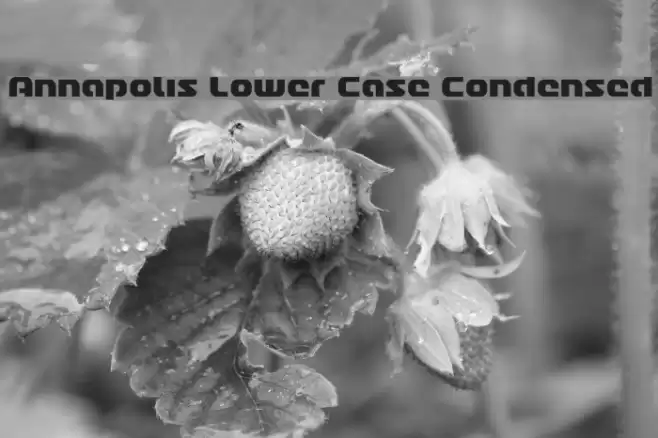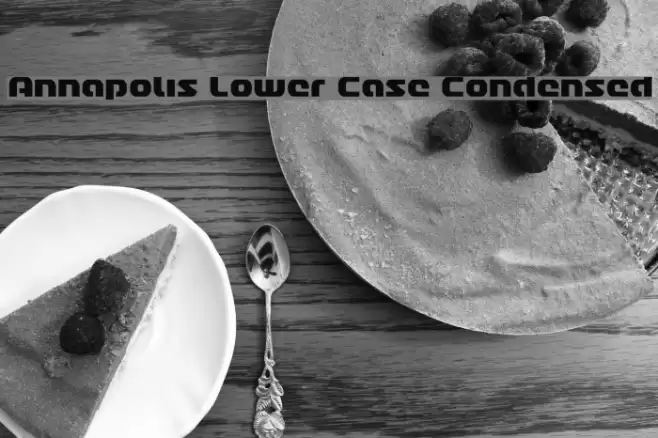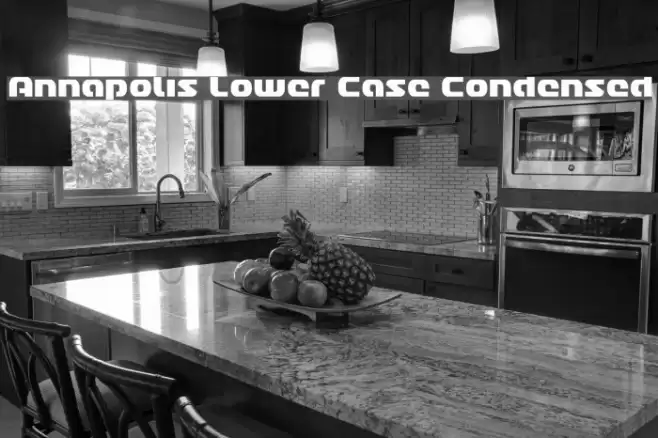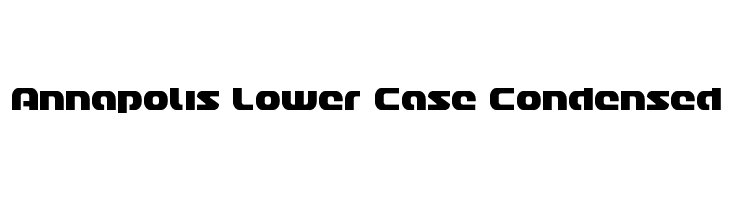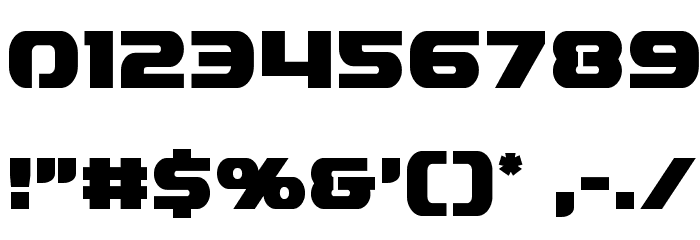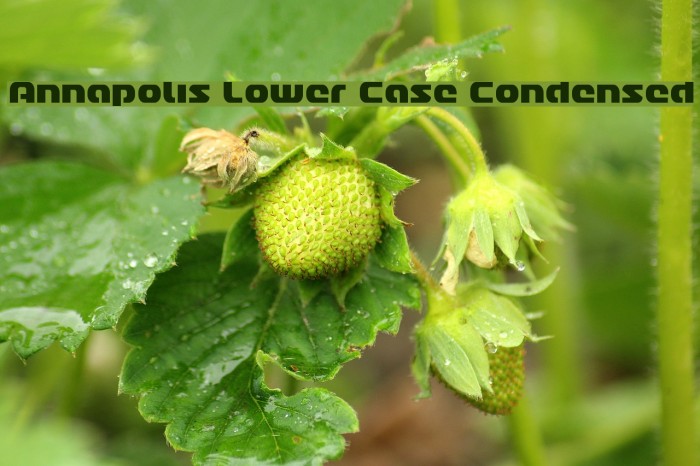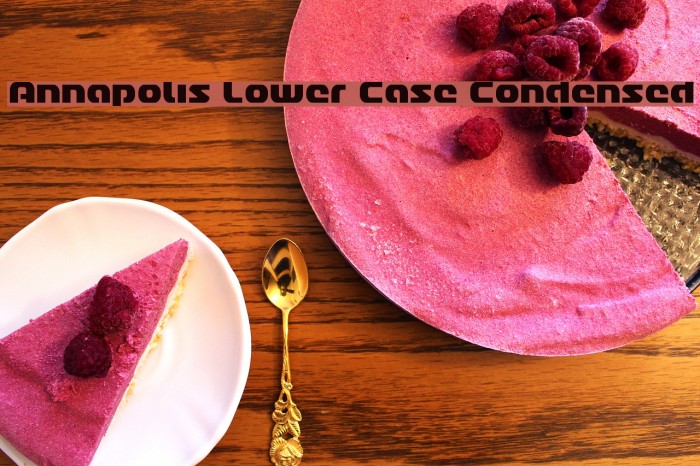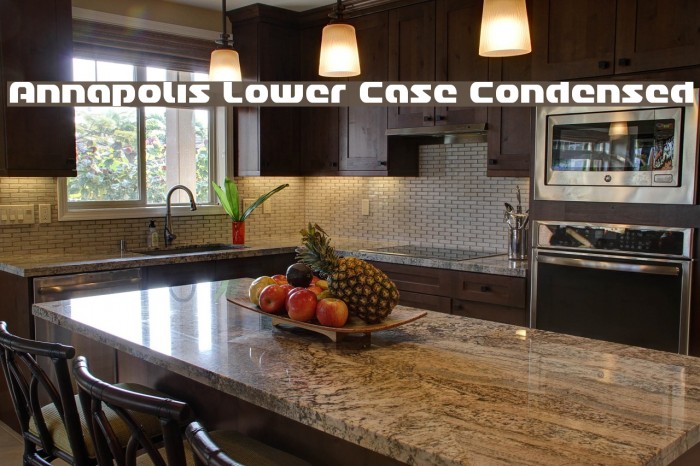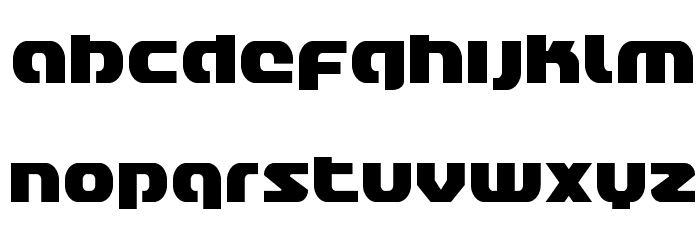
Annapolis Lower Case Condensed Font
Annapolis Lower Case Condensed Description
This font features a bold, geometric style with a condensed width, giving it a strong and impactful appearance. The characters are designed with a modern aesthetic, featuring clean lines and a uniform stroke weight. The uppercase and lowercase letters maintain a consistent height, contributing to a cohesive look. The numerals and special characters are crafted to match the overall style, ensuring versatility across different uses. The font's design is both functional and visually striking, making it suitable for a variety of applications.
A bold, geometric, and condensed font with a modern aesthetic from Sci-fi fonts.